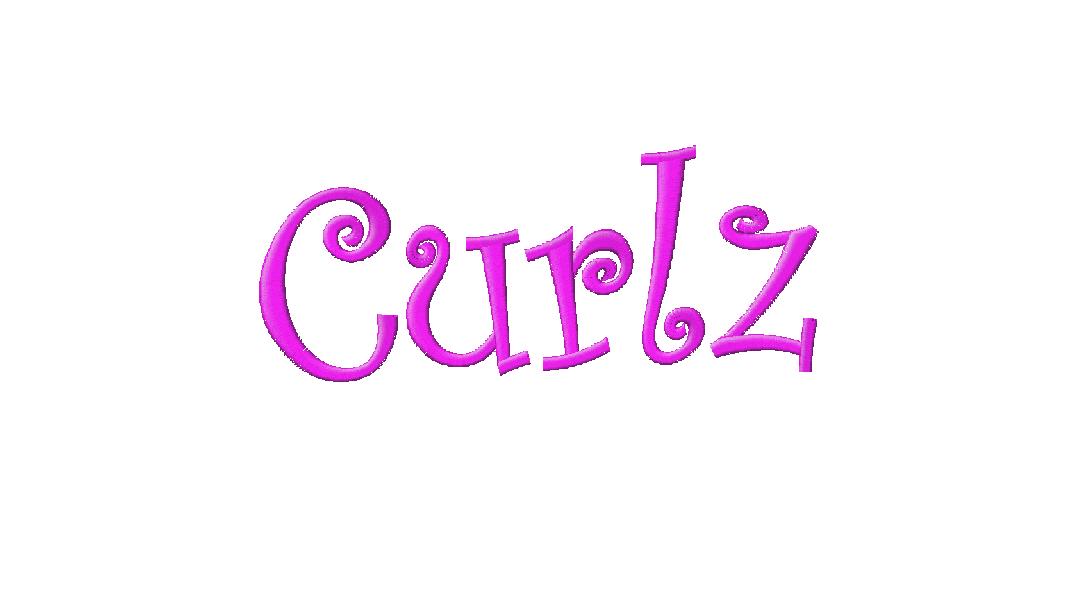
Tuesday is here and Font Week continues. In our second day we are you bringing you one of our favorite and most popular Free Embroidery Design Font sets. The Curlz set is both whimsical and eminent with its spiral curves. Make amazing projects and add this awesome decorative font to send a message